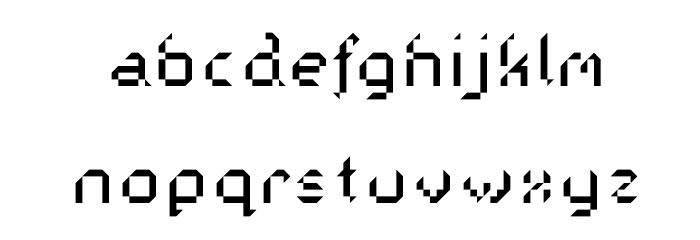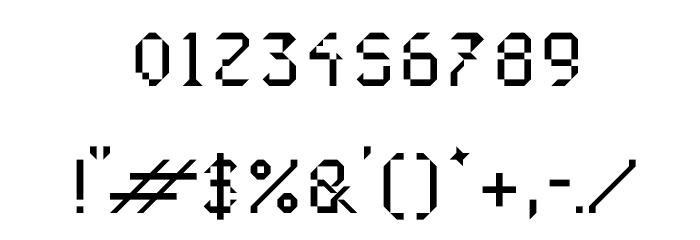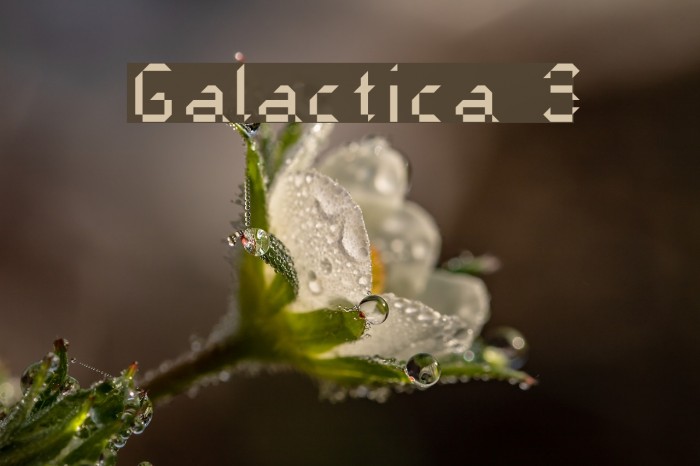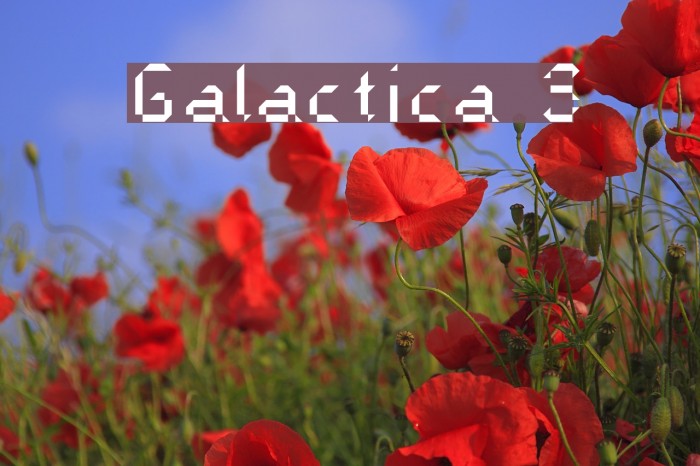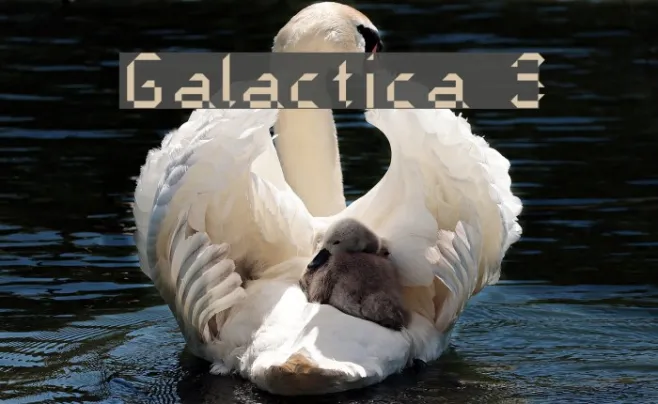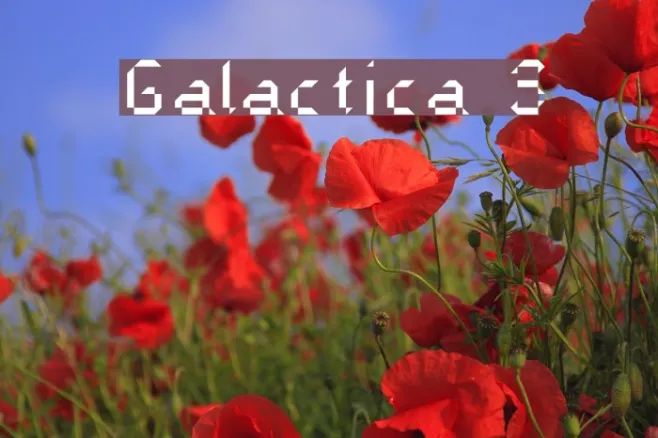
Galactica S Font
This font features a futuristic and geometric design, characterized by its angular and sharp edges. The letters are constructed with a series of straight lines and angles, giving it a digital and modern appearance. The uppercase and lowercase letters maintain a consistent style, with a uniform height and width that enhances readability. The numbers and special characters follow the same design principles, ensuring a cohesive look across all elements. This font's unique style makes it stand out, ideal for projects that require a modern and tech-savvy aesthetic.
A futuristic, angular font with a geometric design.
- Proposed Projects: Ideal for sci-fi themed designs, tech branding, video game interfaces, and digital art projects.